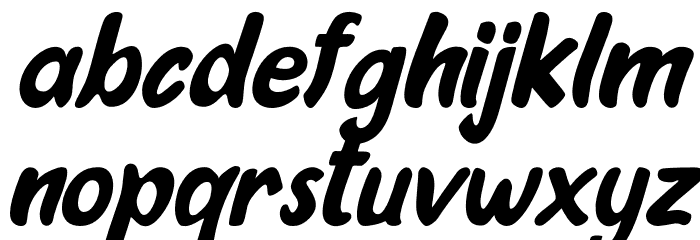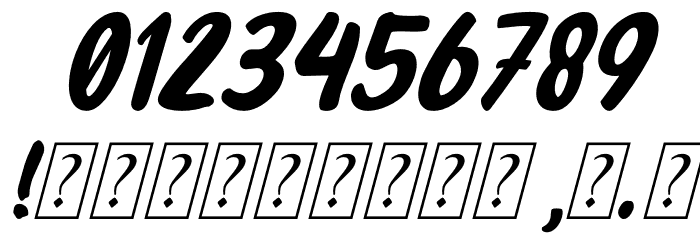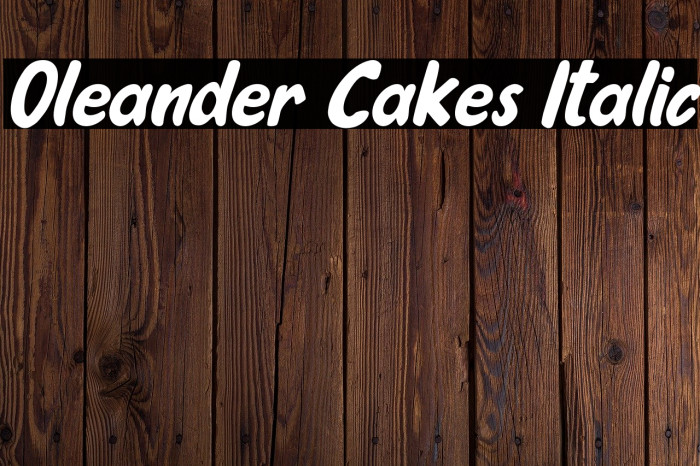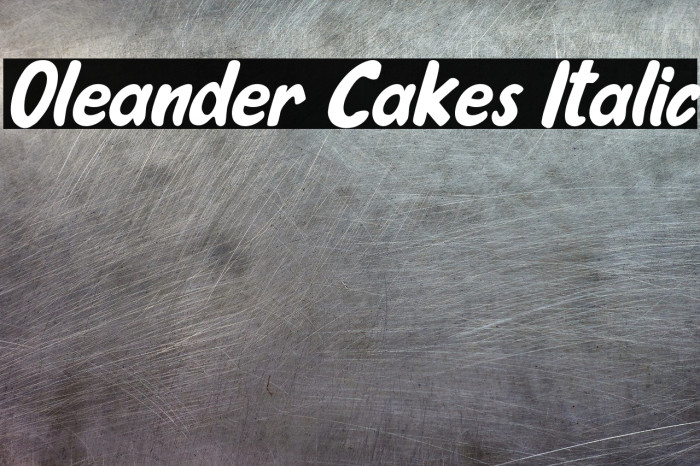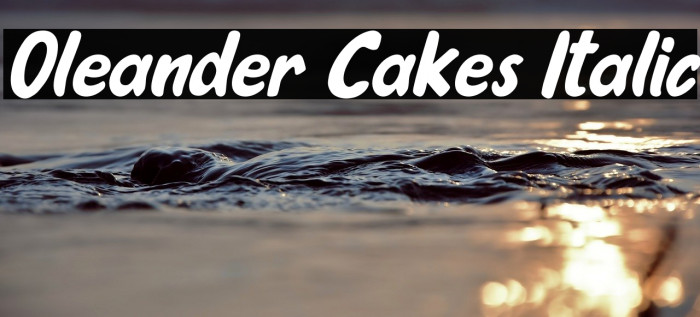
Oleander Cakes Italic Font
This font features a bold and expressive style with a handwritten, italicized appearance. The characters are rounded and slightly slanted, giving them a dynamic and playful look. The uppercase and lowercase letters maintain a consistent flow, with smooth curves and a sense of movement. The numerals are equally bold, matching the overall aesthetic. Special characters are included, maintaining the same bold and fluid style. This font is ideal for projects that require a personal touch, such as invitations, greeting cards, or branding that seeks to convey a friendly and approachable image.
A bold, italicized handwritten font with a playful and dynamic style.
- Proposed Projects: Ideal for invitations, greeting cards, personal branding, and playful designs.
- Overall Style: Playful
- Use Case: Headlines, Logos, Invitations